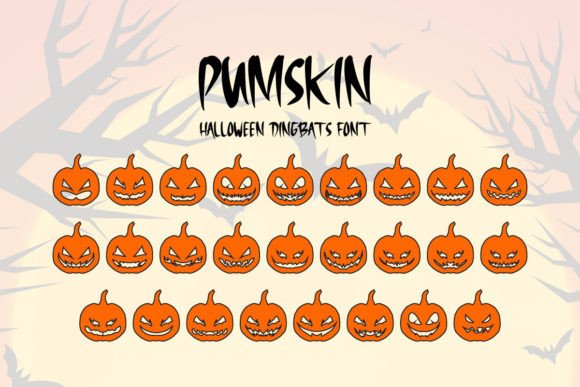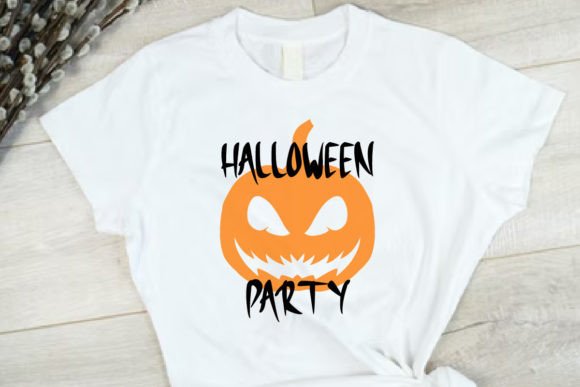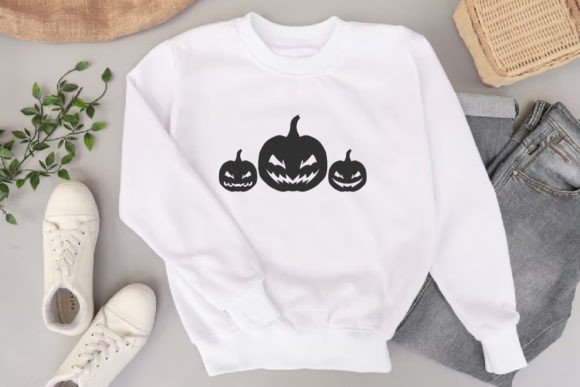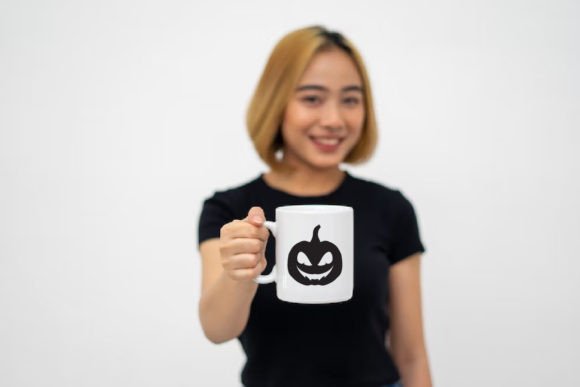
Pumskin Font
About Pumskin Font
Introducing Pumskin, a playful and Halloween-themed dingbat font that will add a touch of spookiness and humor to your creative projects. With its unique pumpkin face glyph character, this font is perfect for a wide range of applications, including t-shirts, crafts, stickers, labels, logos, decorations, and much more!
The spooky and funny pumpkin face glyph in Pumskin is sure to capture the essence of Halloween and bring a sense of whimsy to your designs. Whether you’re designing Halloween-themed t-shirts for a party or event, creating crafts and decorations for spooky celebrations, or designing labels and stickers for Halloween-themed products, Pumskin has got you covered.
The versatility of Pumskin allows you to use it in various creative projects. Design eye-catching logos that incorporate the playful pumpkin face glyph, making your brand stand out with a Halloween twist. Create unique crafts and DIY projects, such as greeting cards, party invitations, and home decor items, that showcase the delightful pumpkin character. Pumskin is also great for labeling and branding Halloween-themed products, adding a fun and memorable element to your packaging and promotional materials.
Let Pumskin bring a touch of spookiness and humor to your creative projects. Whether you’re designing t-shirts, crafts, stickers, labels, logos, decorations, or any other Halloween-themed project, this dingbat font will add a unique and playful element to your designs. Get ready to embrace the spirit of Halloween with the delightful pumpkin face glyph of Pumskin and create designs that are sure to impress and entertain.